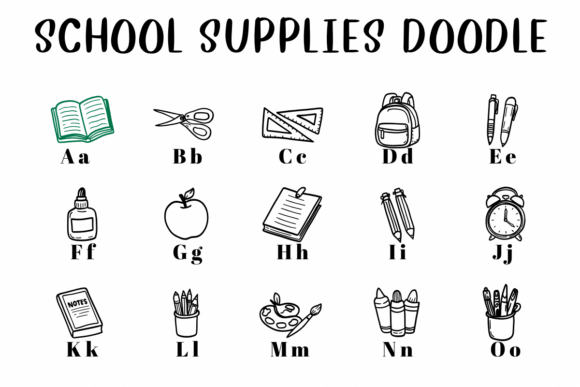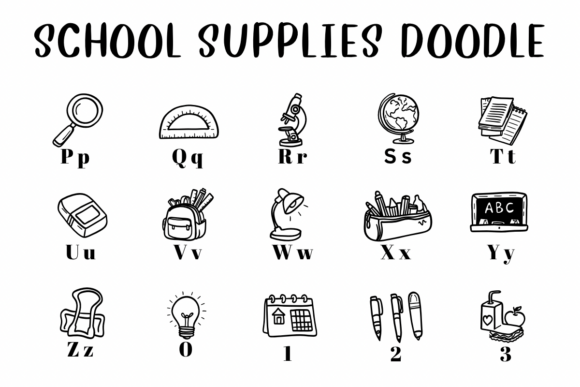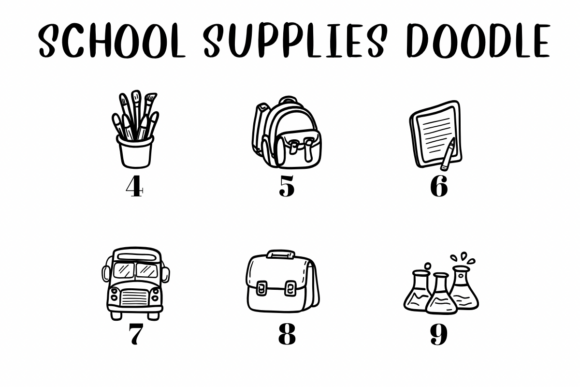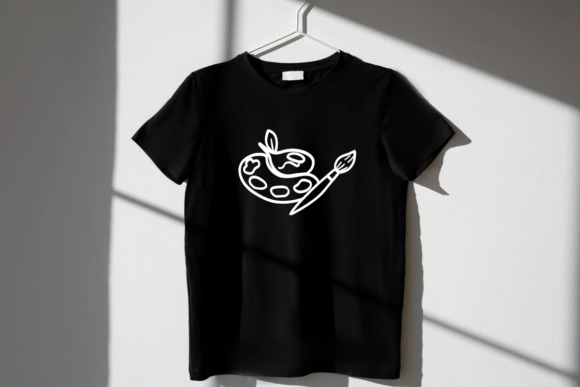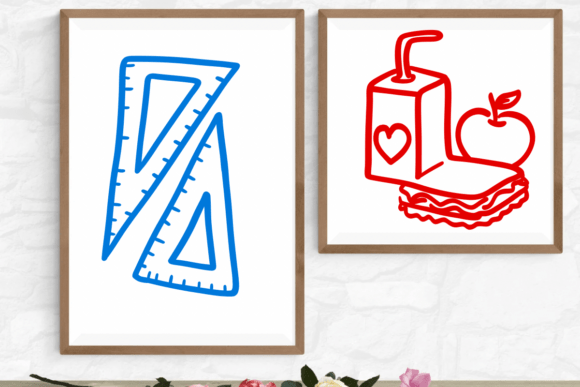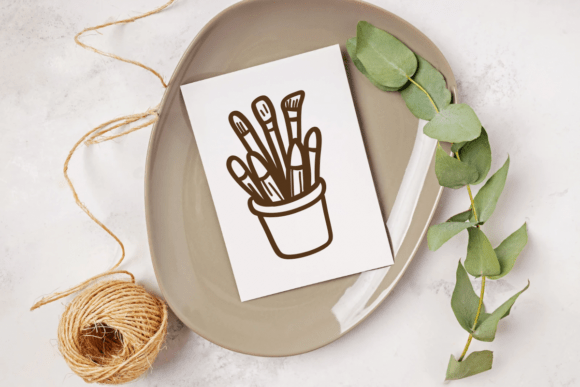
Introduction to School Supplies Doodle Font
Who hasn’t found themselves rummaging through their childhood memories for the perfect way to express their creativity? For many of us, that perfect moment comes when we’re brainstorming ideas for a special project, like a wedding invitation or a DIY craft. The excitement of bringing an idea to life is exhilarating, but it’s often the little details that make all the difference. That’s where the School Supplies Doodle Font comes in – a unique dingbats font that adds a playful, sketchy touch to any design.
This font is a game-changer for designers looking to elevate their creative projects. With its transparent background and high-quality design, it’s a valuable resource for anyone seeking to add a personal touch to their work. Whether you’re a seasoned pro or just starting out, the School Supplies Doodle Font is sure to inspire your next project.
Key Features of School Supplies Doodle Font
- Unique Doodle Design: A playful and creative design featuring various school supplies, making it perfect for educational and fun projects.
- Transparent Background: The font has a transparent background, allowing users to easily place it over any image or design without any distractions.
- Perfect for Educational Projects: The School Supplies Doodle Font is an excellent resource for educational materials, such as worksheets, posters, and flyers.
Honest Review: School Supplies Doodle Font
I recently stumbled upon the School Supplies Doodle Font, and I’m excited to share my thoughts on this design resource. The font is perfect for any creative project that requires a playful, whimsical touch. The best part? It’s a free download, making it accessible to designers of all levels.
Here are some things that work well with this font: ✨
- High-quality illustrations of school supplies, such as pencils, notebooks, and scissors.
- A transparent background, making it easy to customize and combine with other design elements.
- A wide range of colors to choose from, ensuring that your design stands out.
- The font may not be suitable for formal or professional designs, as it has a more playful tone.
- The illustrations are quite detailed, which can make them difficult to resize without losing quality.
Overall, I’m impressed with the School Supplies Doodle Font. It’s a great addition to any designer’s toolkit, and I can see it being used in a variety of creative projects, from kids’ educational materials to party invitations. With a little creativity, the possibilities are endless!
Some tips for getting the most out of the School Supplies Doodle Font include experimenting with different colors and arrangements, using the font’s transparency feature, and combining it with other design elements. Common use cases include designing educational materials, creating party invitations, and developing marketing materials for schools and educational institutions.